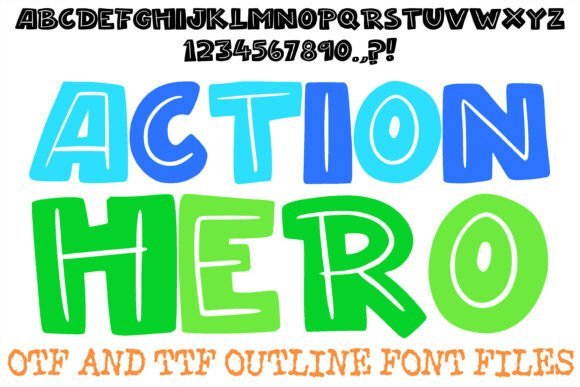
Meet the Font that’s Saving the Day: Action Hero Font
Imagine you’re designing a logo for a new superhero video game, and you need a font that’s going to make a bold statement. You want something that’s going to jump off the screen and grab the viewer’s attention. That’s where the Action Hero Font comes in – a powerful display typeface that’s inspired by the golden age of comic books and classic animation.
With its heavy, solid block letterforms and internal highlight line, the Action Hero Font creates an instant 3D “pop” effect that’s guaranteed to deliver maximum impact. Whether you’re working on superhero-themed branding, high-energy event posters, gaming graphics, or custom apparel, this font is a valuable tool in your design arsenal.
By incorporating the Action Hero Font into your designs, you can add a heroic presence that’s sure to make your message stand out from the crowd. So why settle for a font that’s just okay when you can have one that’s truly heroic?
- Unique Characteristics: Features a bold and dynamic design, with exaggerated lines and shapes to create a heroic feel.
Overall, I’d say the Action Hero Font is a decent option for those looking for a bold, attention-grabbing font. Here are some pros and cons that stood out to me:
- ✨ The font’s bold, blocky design is perfect for action-packed movie titles or video game interfaces.
- ✨ The font’s high contrast between thick and thin lines makes it easy to read, even at small sizes.
- ✨ The font is highly customizable, with a range of options for color, size, and line spacing.
- ⚠️ The font may be too overpowering for more subtle or nuanced designs.
- ⚠️ Some users may find the font’s blocky design to be too harsh or lacking in character.
- ⚠️ The font’s high contrast may not be suitable for users with visual impairments.
I’d recommend the Action Hero Font to designers who are looking for a bold, attention-grabbing font for a specific project or theme. However, I would caution against using it as a default font, as its boldness may overpower other design elements. With careful use and consideration, the Action Hero Font can be a valuable addition to any designer’s toolkit.
For the most striking results, use the Action Hero Font in combination with bold, bright colors and dramatic graphics. This font is perfect for movie posters, comic book covers, and action-packed video game titles. You can also use it to add a touch of excitement to your marketing materials, social media posts, or website headers.
Action Hero Font is a popular sans-serif font known for its bold, energetic, and modern look. However, it may not be the best choice for every project. Here are some alternatives that designers can consider:
Montserrat is a geometric sans-serif font designed for digital use. It has a similar bold and modern feel to Action Hero Font but with a more sophisticated and polished look. Use Montserrat when you need a font that is both stylish and easy to read on digital screens.
Comparison to Action Hero Font: Montserrat has a more refined and detailed design, while Action Hero Font has a more aggressive and bold look.